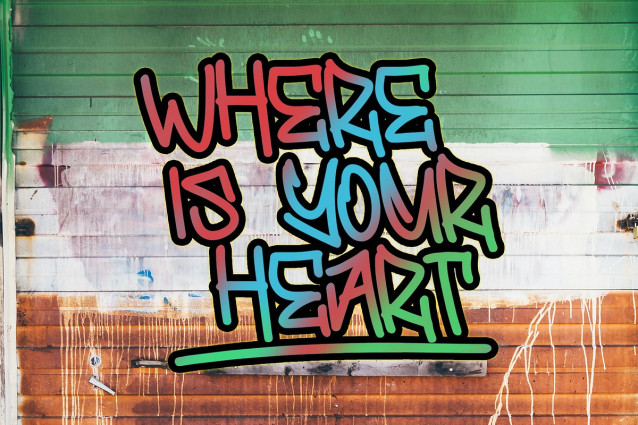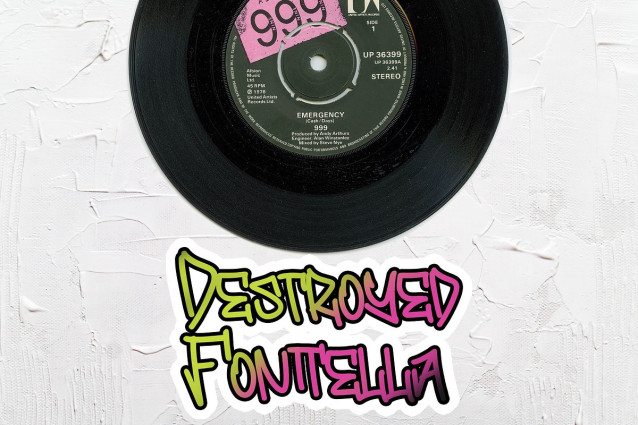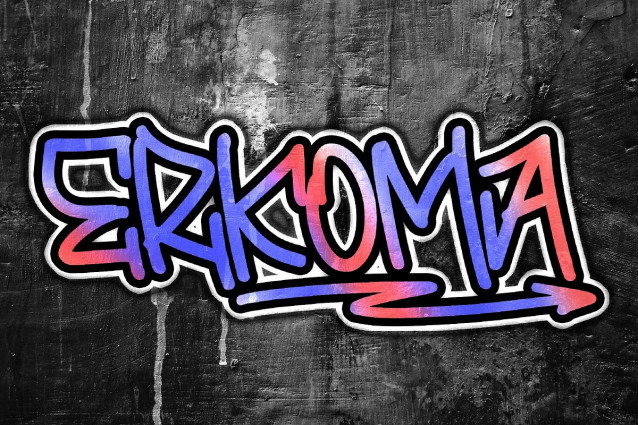
Erkoma Graffiti Font
Erkoma Graffiti Font, a graffiti font with a striking bold monoline brush style, designed to add character and impact to your projects. With its unique, eye-catching shapes, ERKOMA brings an authentic street-art vibe, perfect for branding, posters, streetwear, and more. This font’s bold style instantly enhances visual appeal with a creative, edgy touch.